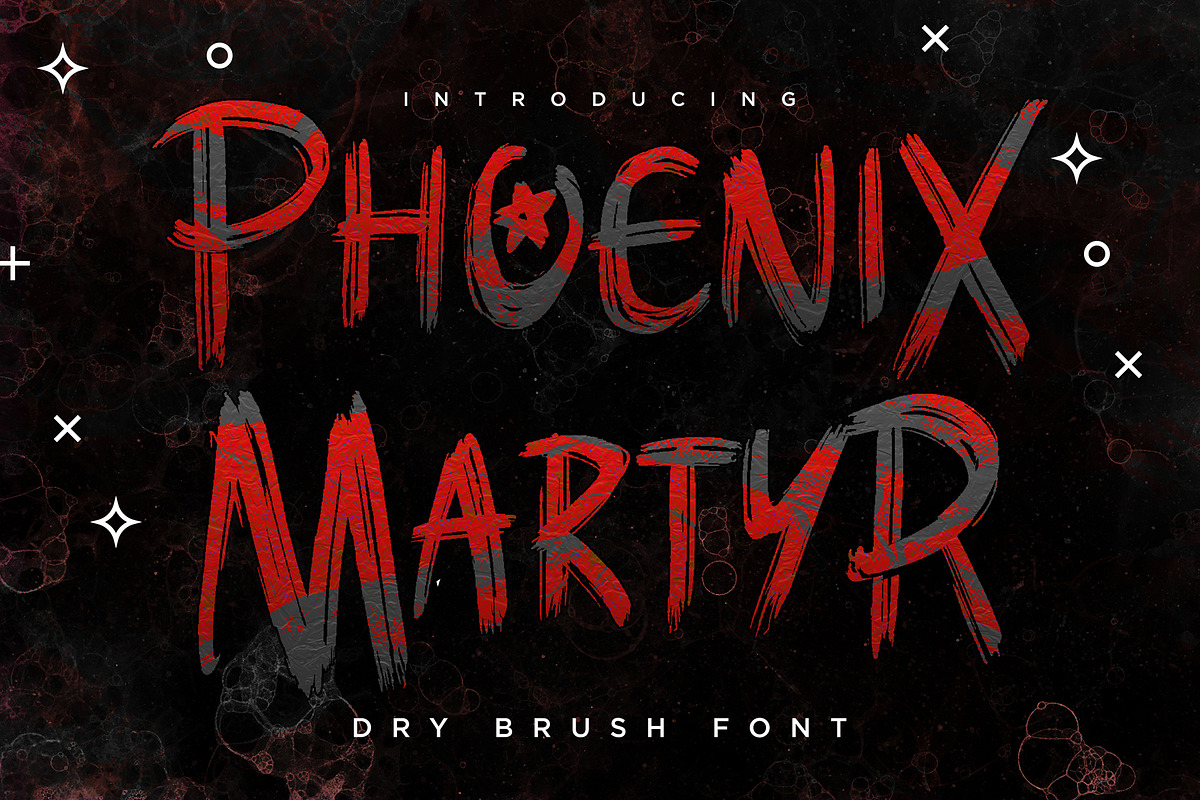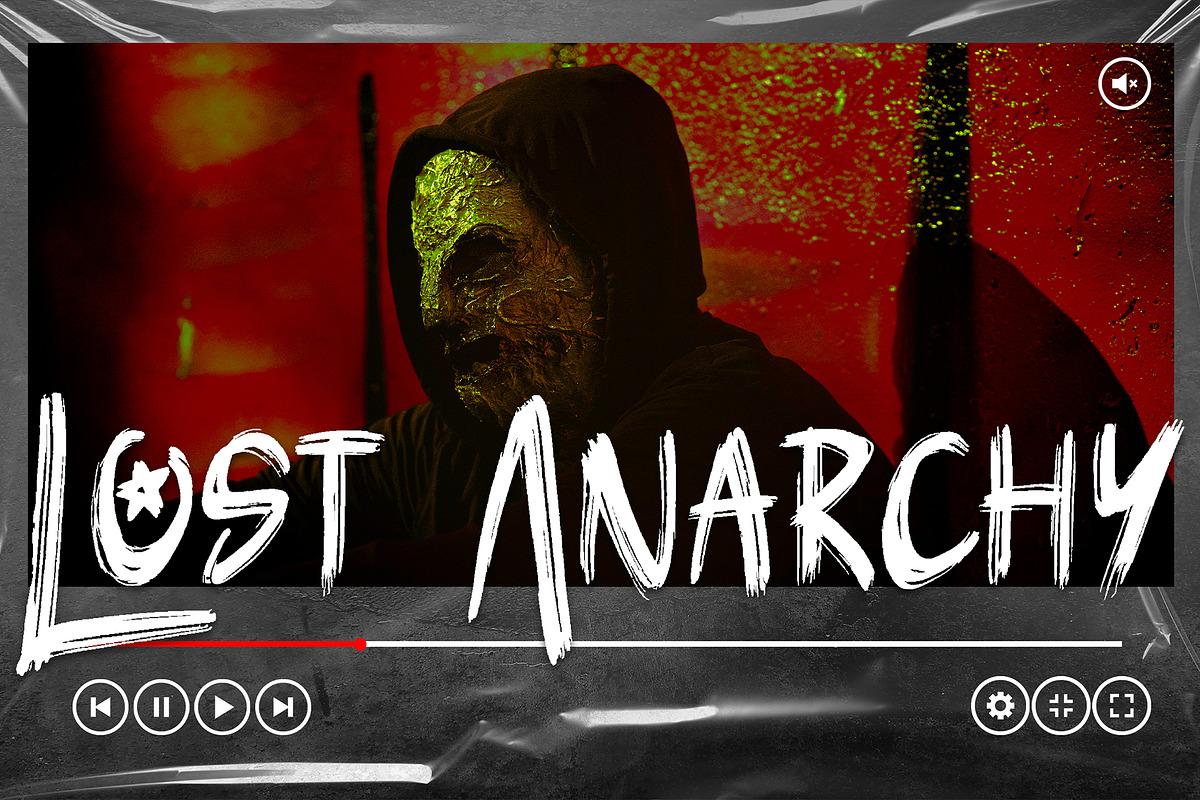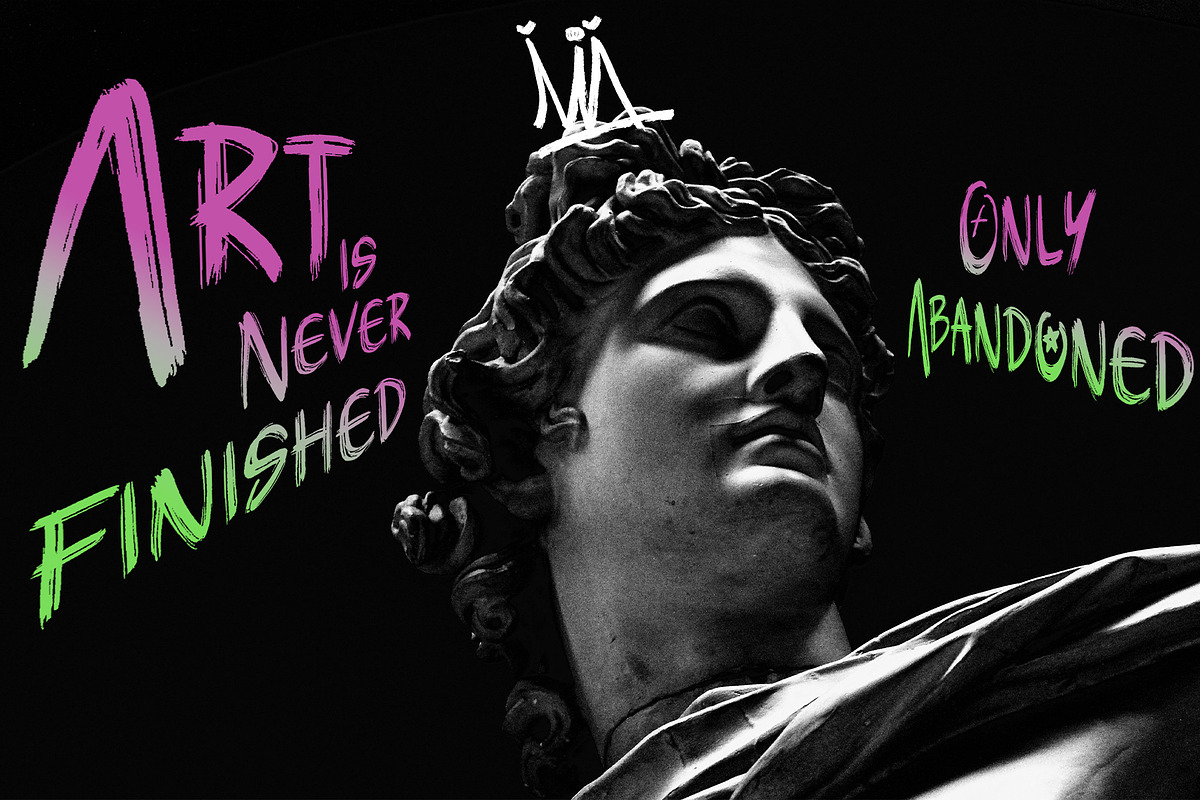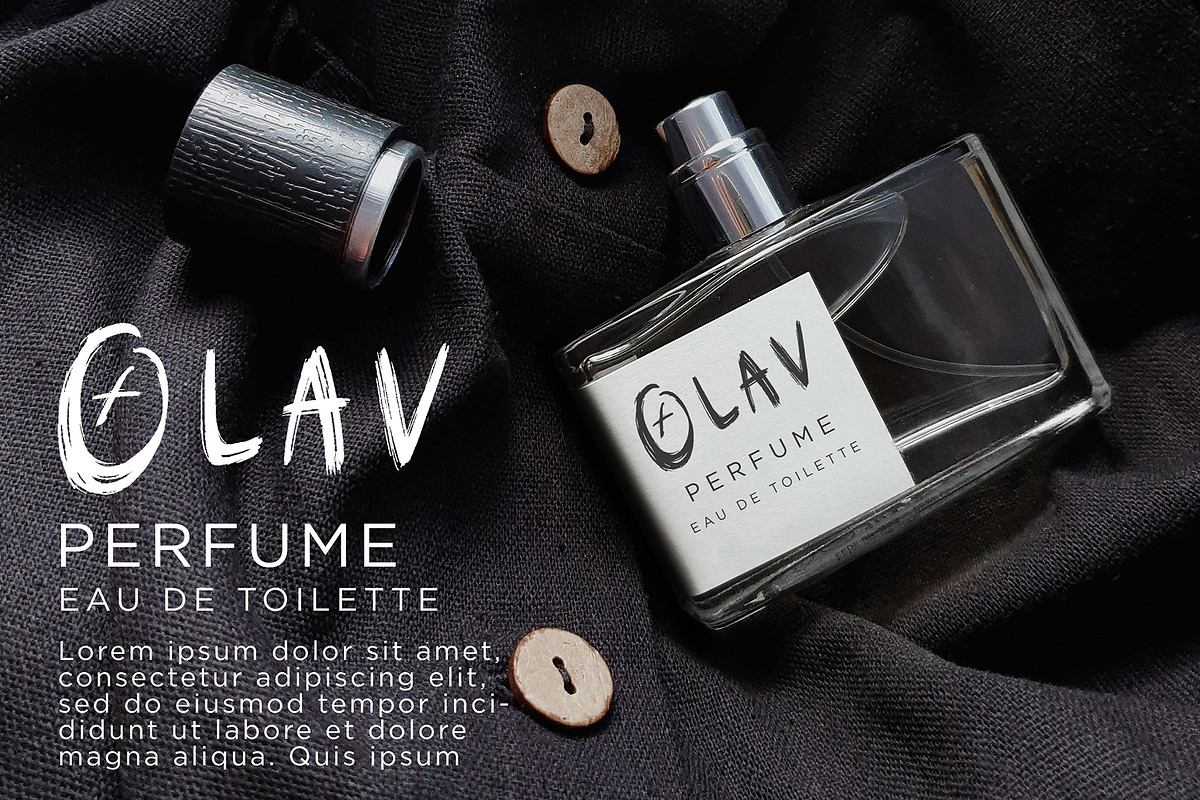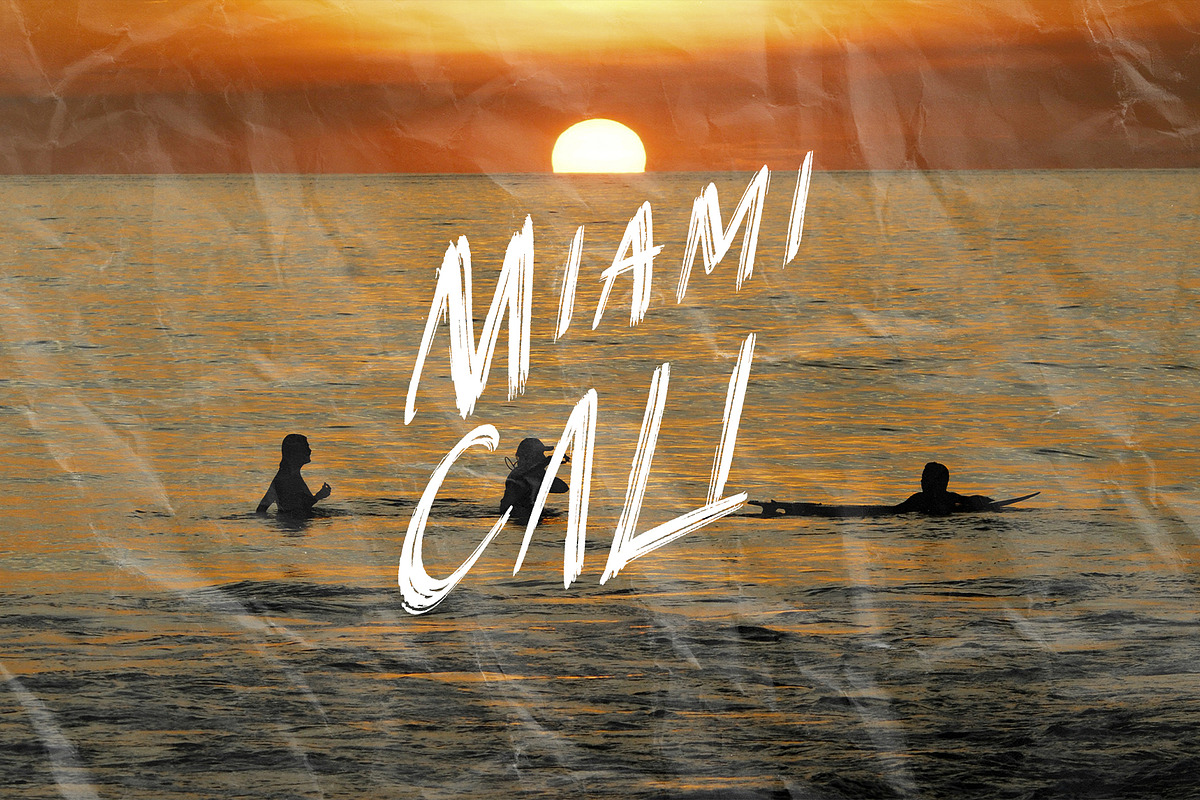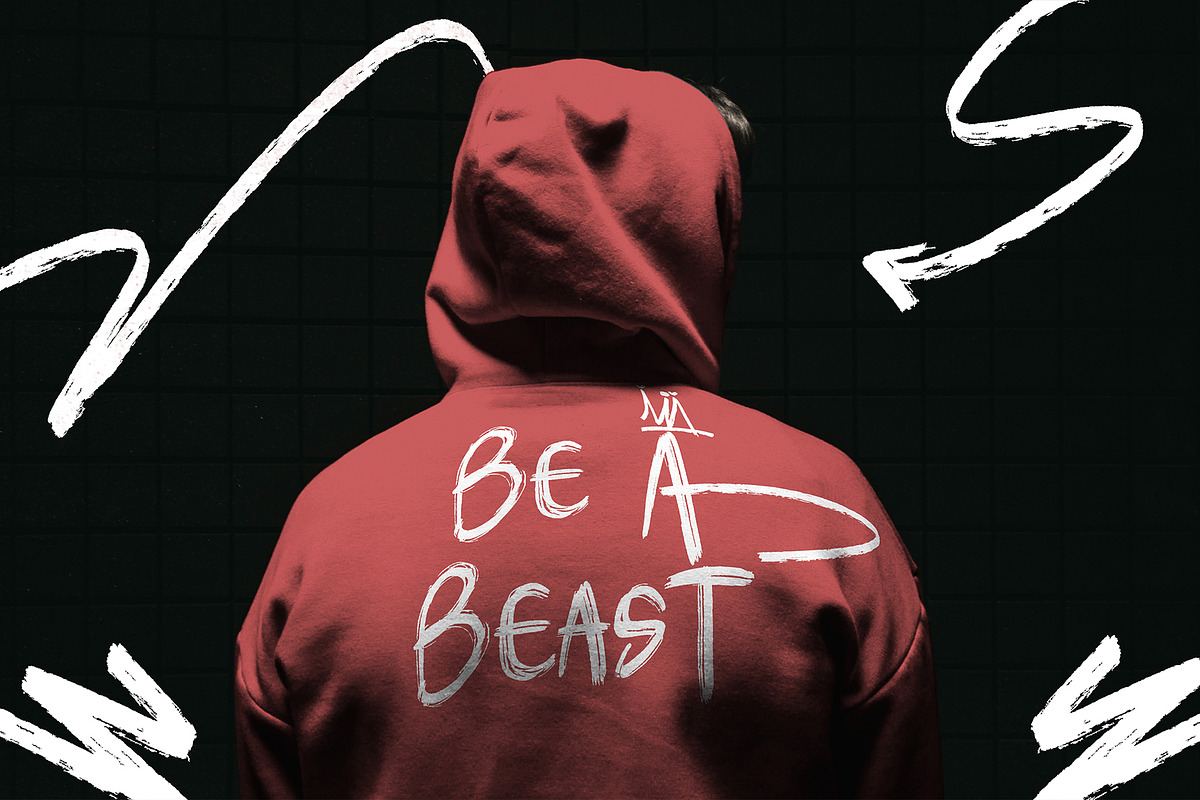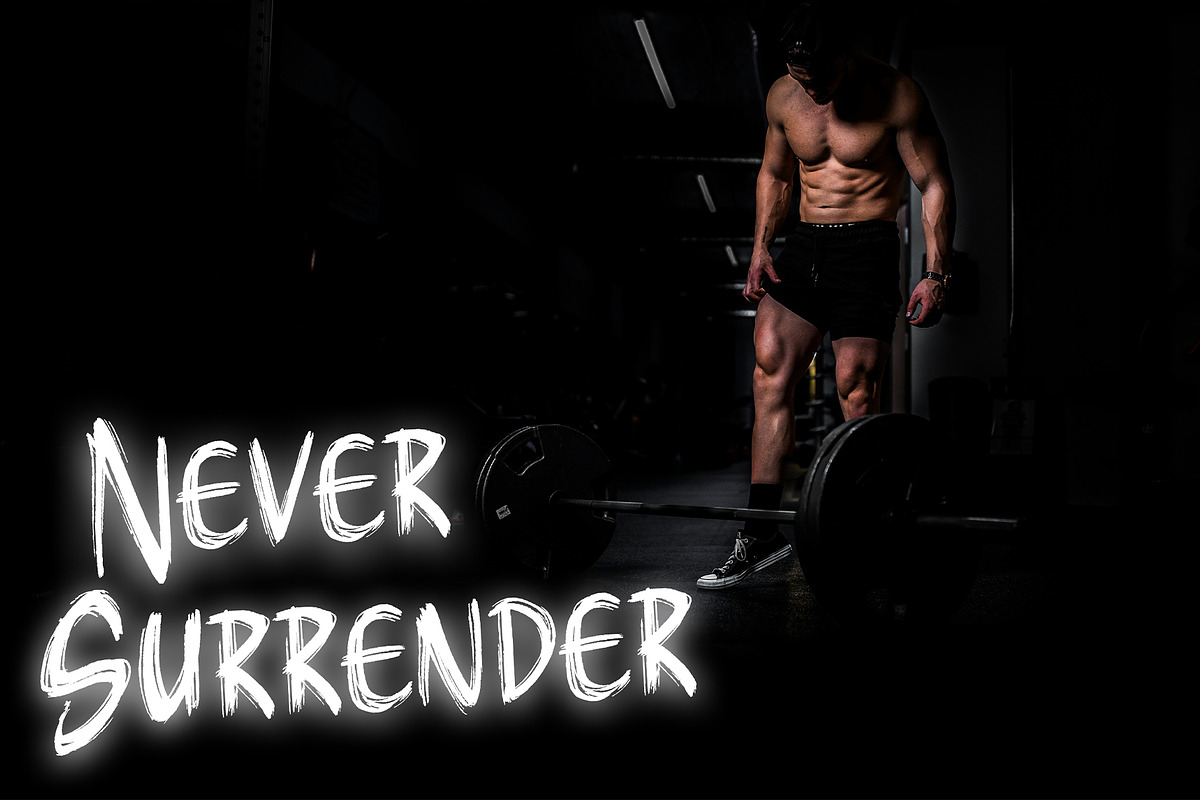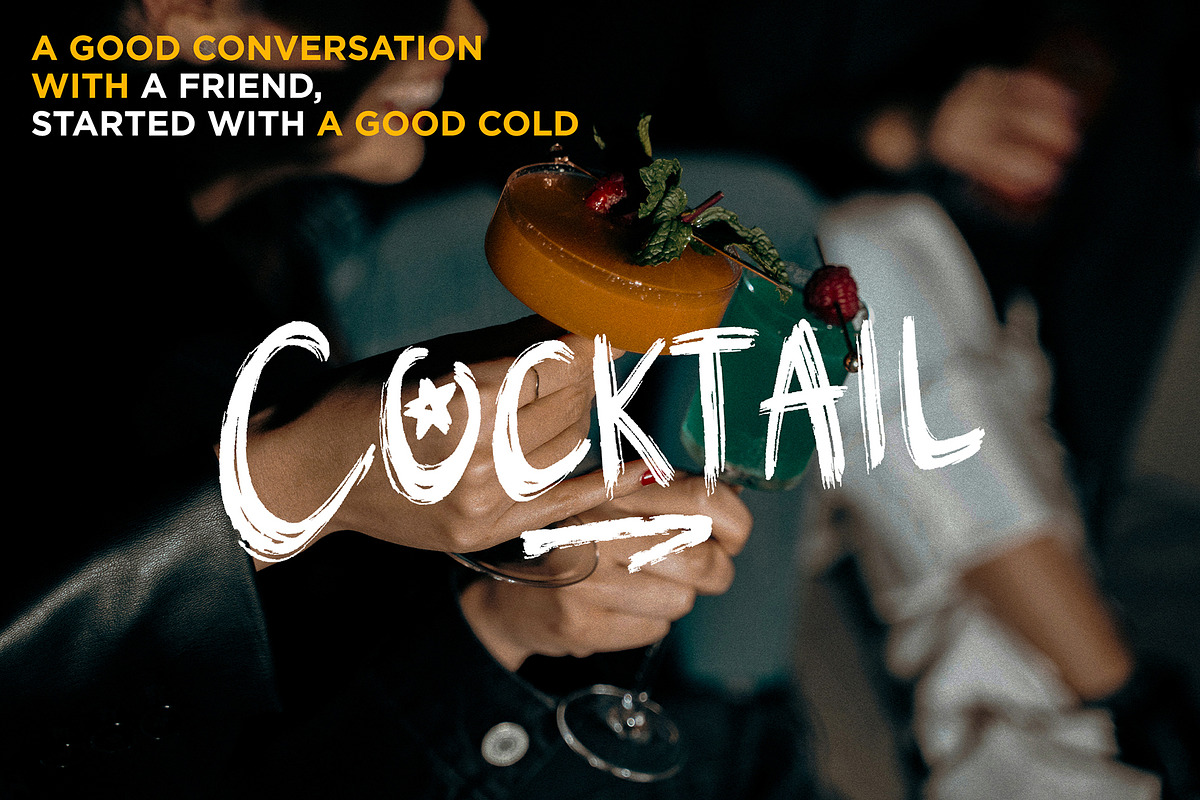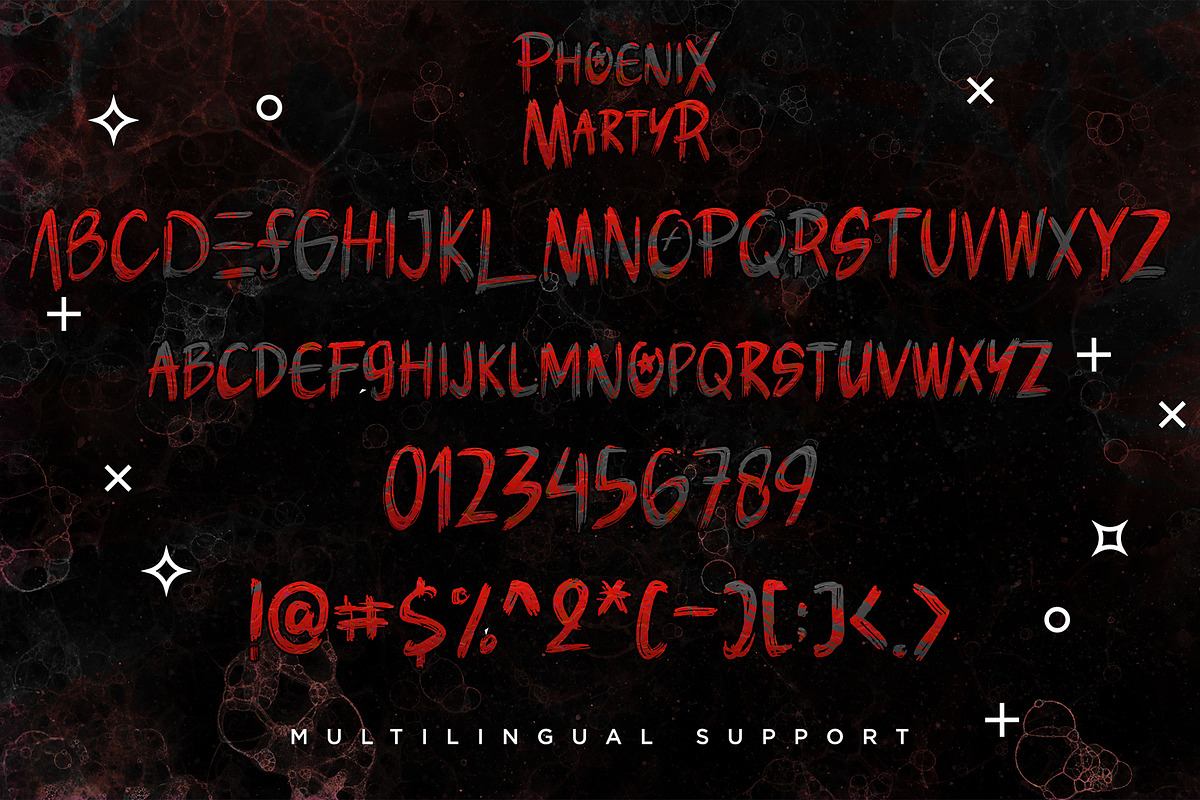
Phoenix Martyr – Dry Brush Font
Phoenix Martyr is a raw and expressive dry brush font that brings intensity and energy to your designs. With its rough textures and dynamic strokes, this typeface captures the rebellious spirit of hand-painted lettering. Perfect for posters, album covers, branding, streetwear, and sports graphics, Phoenix Martyr demands attention and makes a bold statement every time.
Whether you're working on edgy advertising or gritty typographic compositions, this font adds a handcrafted, urban feel that’s both powerful and authentic.
Authentic Dry Brush Texture for a raw, handcrafted look
Bold & Expressive Letterforms for strong visual impact
All Caps Font with alternates for variation